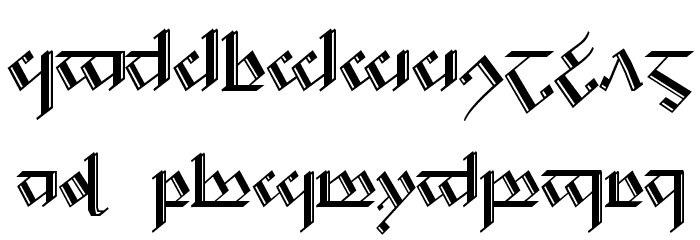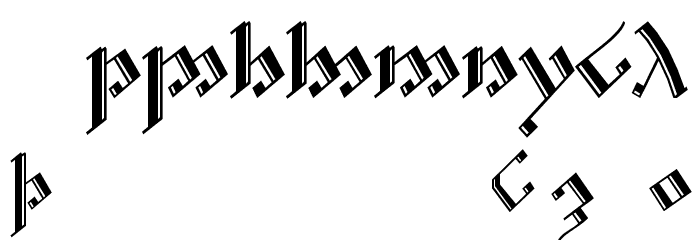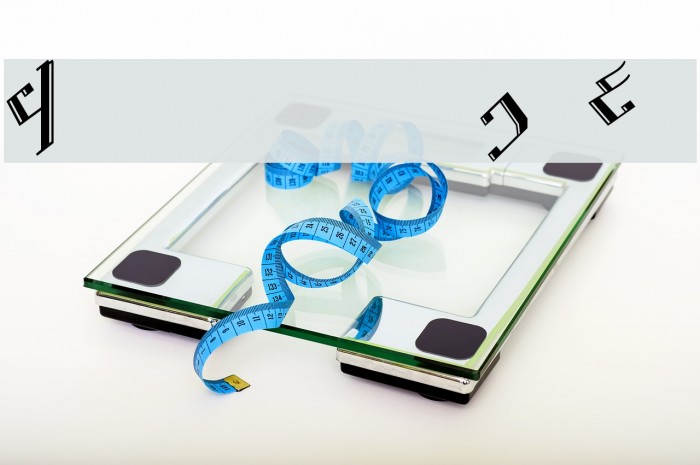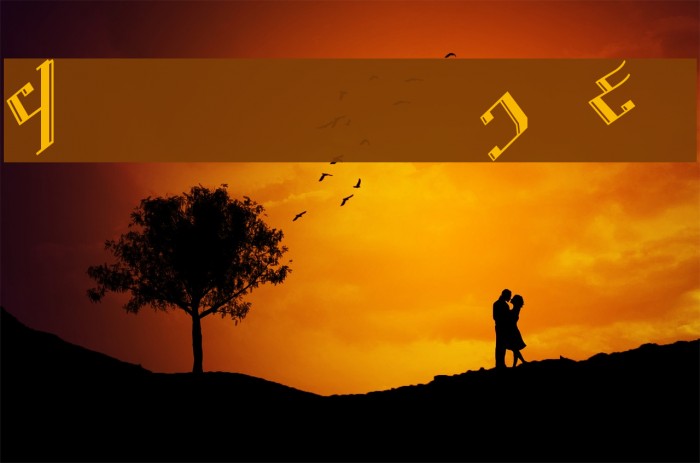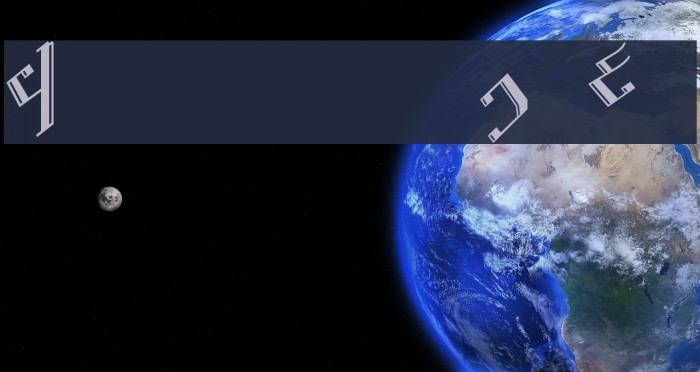
Tengwar Noldor 2 Font
This font features an intricate and stylized design reminiscent of ancient scripts. The characters are elongated with sharp, angular edges and decorative elements that give it a mystical and fantasy-like appearance. The strokes are bold and consistent, with a high contrast between thick and thin lines, creating a dramatic visual impact. The overall style is highly decorative, making it suitable for thematic and artistic projects. The unique shapes and forms of the letters suggest a connection to fictional or historical languages, adding an element of mystery and allure.
A decorative, fantasy-inspired font with bold, angular characters and high contrast.
- Proposed Projects: Ideal for fantasy-themed projects, book covers, movie posters, or any design requiring an ancient or mystical aesthetic.
- Use Case: Logos, Headlines, Thematic designs